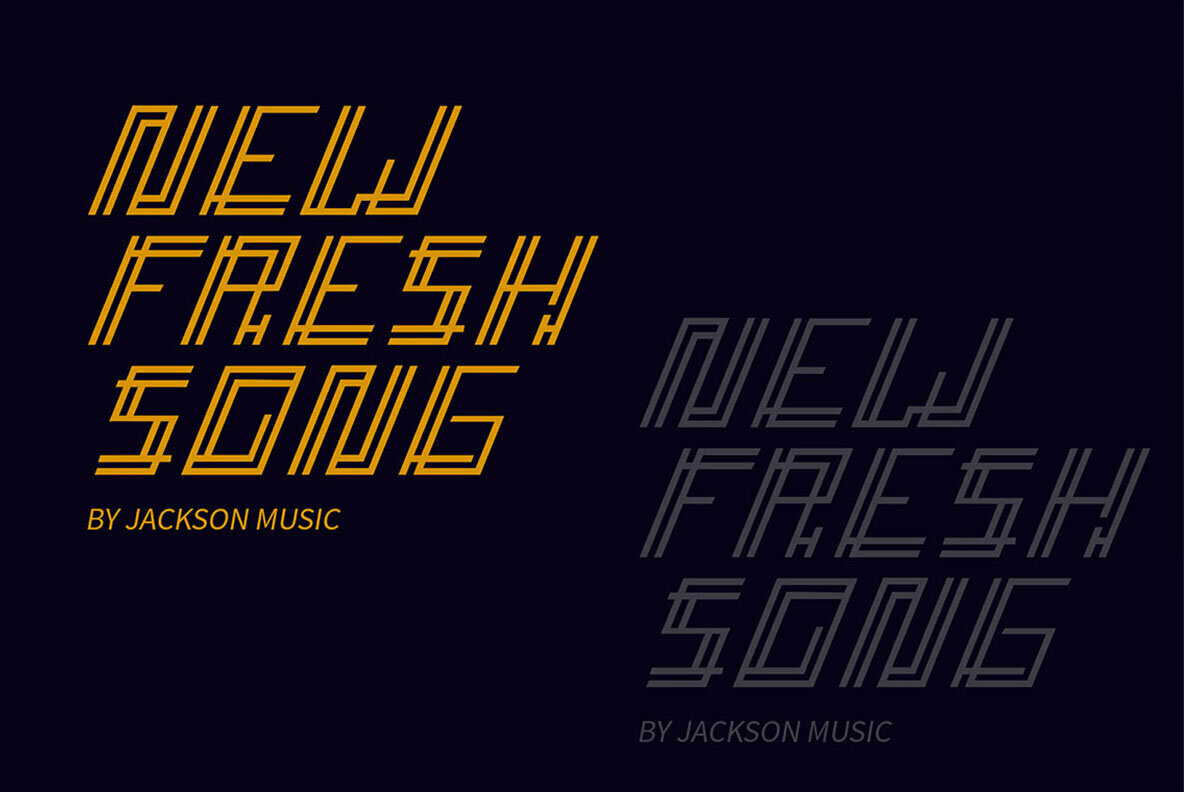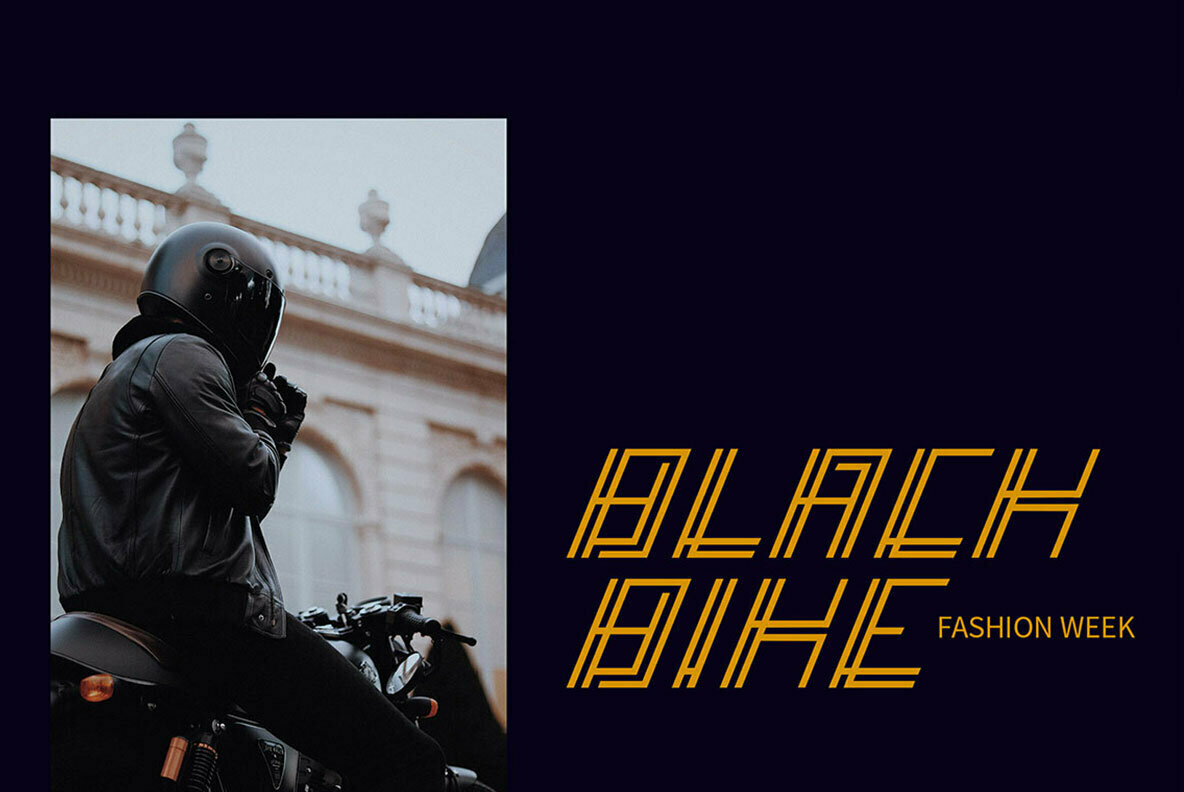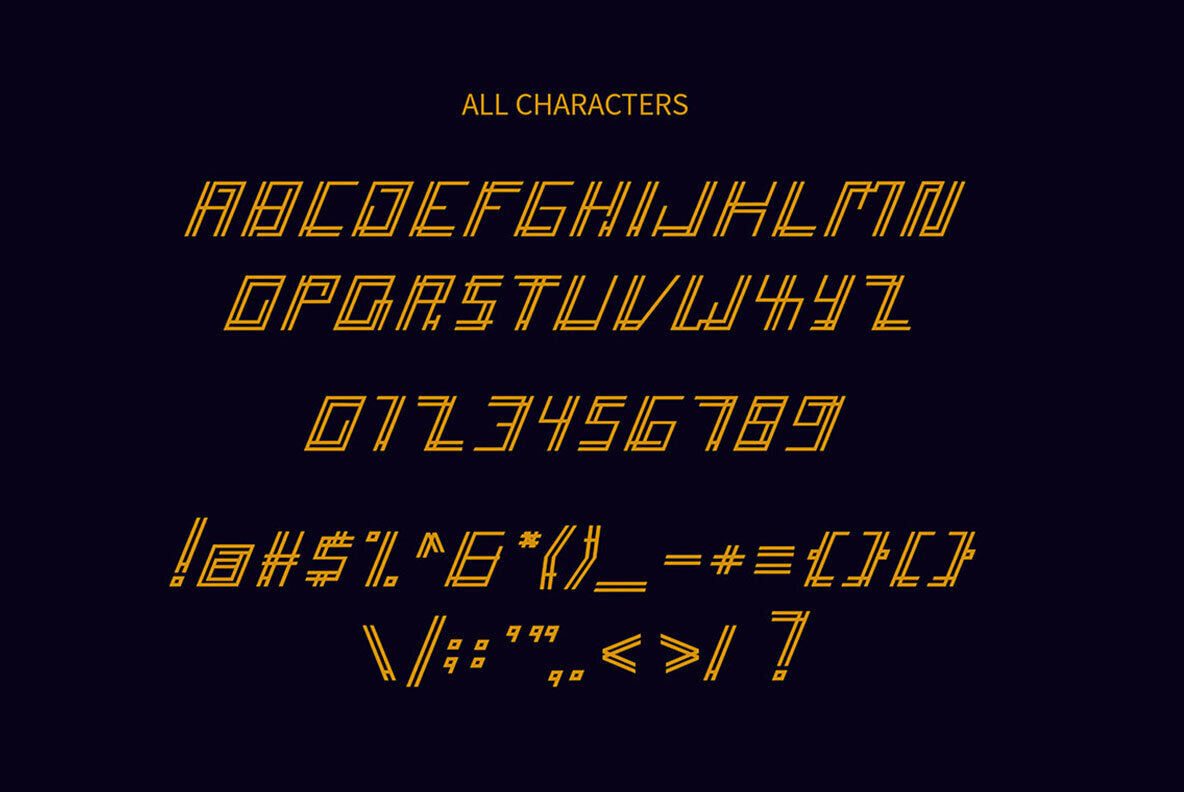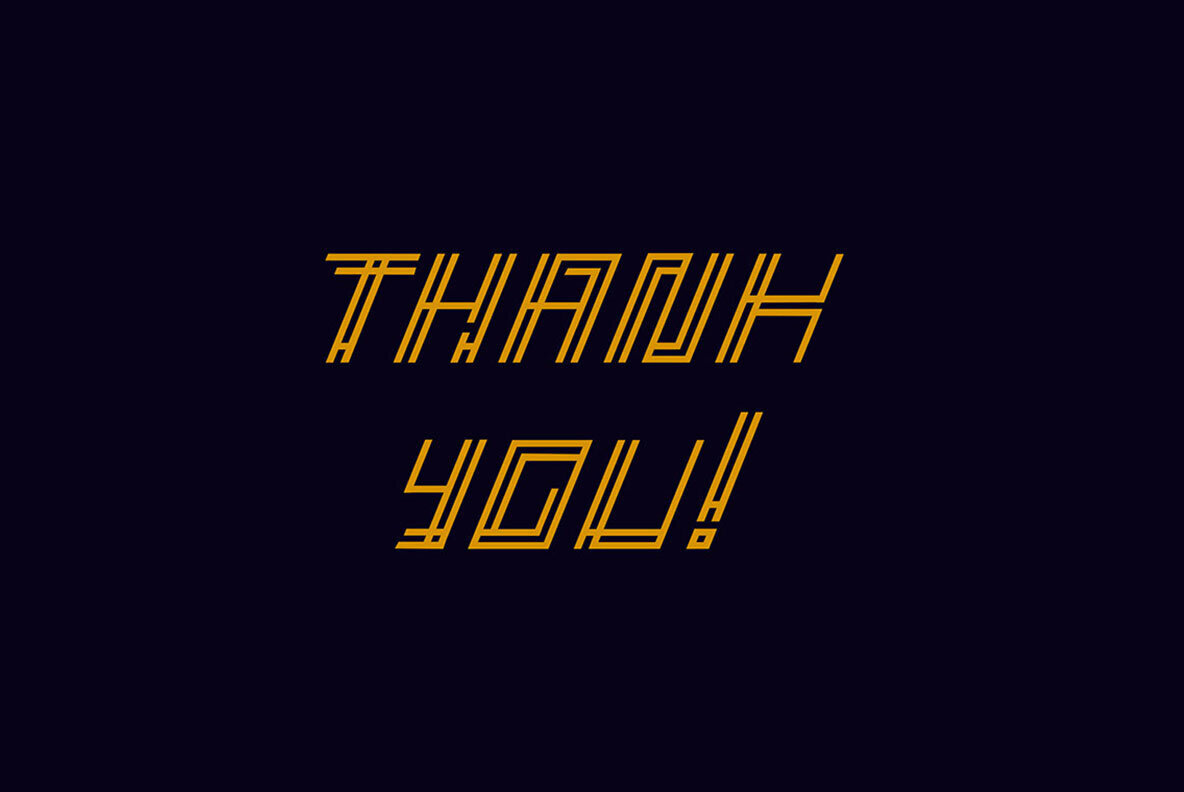
Accelera Font
Accelera
Accelera is thin line decoration font. It has a elegant, classy look and cool. It’s a great font for fashion, apparel projects, signature, album cover, logo, branding, magazine, social media, & advertisements, but also works great for other projects.